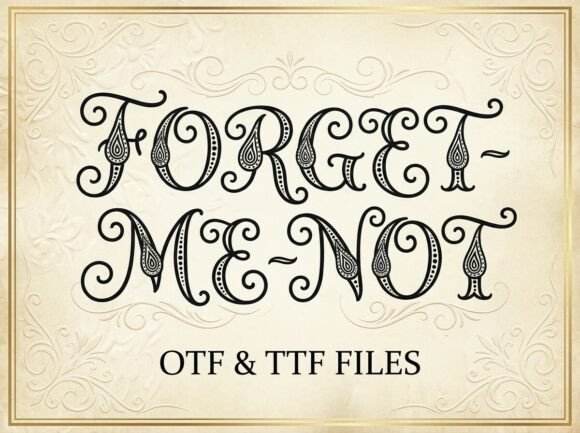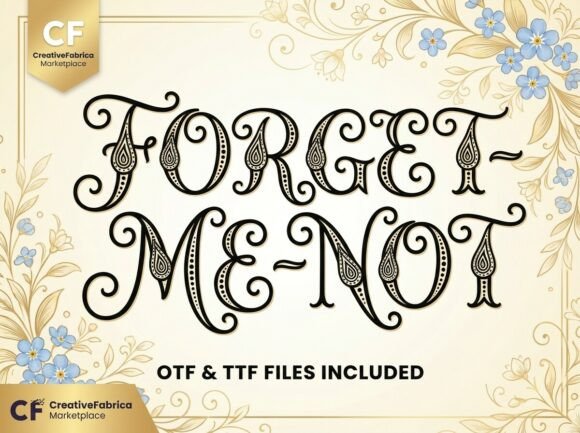
Introducing Forget-Me-Not Font: A Timeless Charm for Your Designs
Are you looking for a font that can add a touch of elegance and sophistication to your designs? Look no further than Forget-Me-Not, an ornamental script font that blends traditional calligraphy with the intricate artistry of paisley. This high-detail display typeface is perfect for designers and crafters who want to create heritage branding, artisanal textile labels, bespoke wedding stationery, and sophisticated editorial headers.
The Unique Features of Forget-Me-Not Font
Forget-Me-Not font is a masterpiece of intricate design, featuring sweeping, graceful letterforms where the primary stems are elegantly filled with hand-drawn teardrop motifs, intricate stippling, and botanical scrollwork. The font’s rhythmic swashes and nostalgic “heirloom” aesthetic make it a premier choice for designers who want to create a sense of nostalgia and tradition in their work.
Perfect for Heritage Branding
Forget-Me-Not font is ideal for heritage branding, as it evokes a sense of tradition and history. The font’s classic design and elegant letterforms make it perfect for creating logos, labels, and packaging for heritage brands. Whether you’re working with a luxury brand or a small business, Forget-Me-Not font can help you create a sophisticated and timeless look.
Artisanal Textile Labels and Bespoke Wedding Stationery
Forget-Me-Not font is also perfect for artisanal textile labels and bespoke wedding stationery. The font’s intricate design and elegant letterforms make it ideal for creating beautiful and unique labels and stationery. Whether you’re working with a small textile business or creating bespoke wedding stationery, Forget-Me-Not font can help you create a beautiful and sophisticated look.
Sophisticated Editorial Headers
Forget-Me-Not font is also perfect for creating sophisticated editorial headers. The font’s classic design and elegant letterforms make it ideal for creating headers for magazines, newspapers, and other publications. Whether you’re working on a editorial project or creating a blog, Forget-Me-Not font can help you create a sophisticated and timeless look.
The Benefits of Using Forget-Me-Not Font
There are many benefits to using Forget-Me-Not font in your designs. Here are a few:
- Unique and elegant design: Forget-Me-Not font features a unique and elegant design that will set your work apart from others.
- Highly versatile: Forget-Me-Not font is highly versatile and can be used for a variety of design projects, from heritage branding to bespoke wedding stationery.
- Easy to read: Despite its intricate design, Forget-Me-Not font is easy to read, making it perfect for body text and headlines.
- Timeless charm: Forget-Me-Not font has a timeless charm that will never go out of style, making it a great investment for designers and crafters.
Tips for Using Forget-Me-Not Font
Here are a few tips for using Forget-Me-Not font in your designs:
- Use it sparingly: Forget-Me-Not font is a highly decorative font, so it’s best to use it sparingly to avoid overwhelming your design.
- Pair it with a simple font: Pair Forget-Me-Not font with a simple font to create a beautiful contrast and make your design stand out.
- Experiment with different sizes: Experiment with different sizes of Forget-Me-Not font to create a visually interesting design.
| Author | greenvill |
Forget-Me-Not font is a beautiful and elegant font that can add a touch of sophistication and timeless charm to your designs. With its intricate design, rhythmic swashes, and nostalgic “heirloom” aesthetic, it’s perfect for heritage branding, artisanal textile labels, bespoke wedding stationery, and sophisticated editorial headers. Whether you’re a designer or crafter, Forget-Me-Not font is a great investment that will help you create beautiful and unique designs.